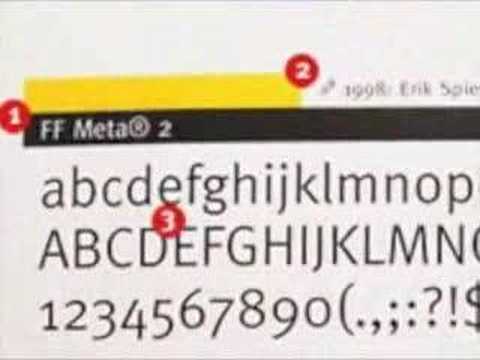
Typography Videos
Here are some typography-related videos.
Font Humour
Trajan—the Movie Font
iLT’s Homage to FontBook
This video is a beautiful brief introduction to typography. Typography is what language looks like - Ellen Lupton. A good typographer is someone who communicates a point of view with skill and imagination and makes the type taste good—Jeffrey Keedy
Veteran graphic design, typography and letterpress teacher from the London College of Printing, David Dabner talks about typography, giving an insight into the principles of design, creative letterpress and why computers—in his opinion—make students sloppy.
An interesting use of type. The typewriter font mimics those used in old police reports. Individual letter forms are animated to illustrate characteristics of, in this instance, a serial killer.
Helvetica The Documentary (clip) Wim Crouwel:
One minute and 53 seconds with Wim Crouwel. “Neutralism was a word that we loved”.
Helvetica The Documentary (clip Erik Spiekermann).
“I just like looking at type…they are my friends.”